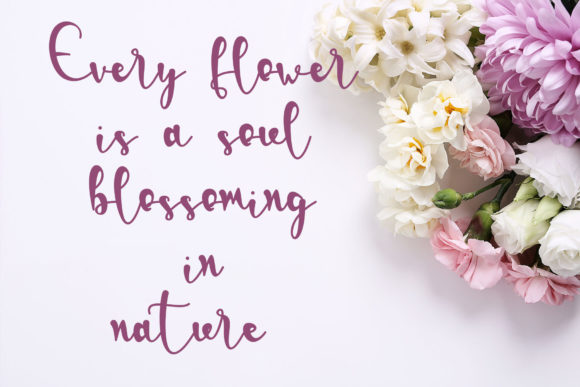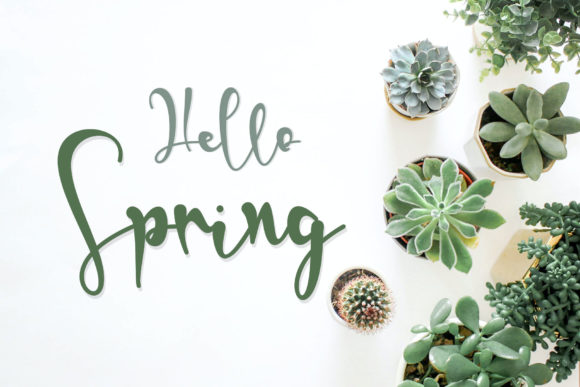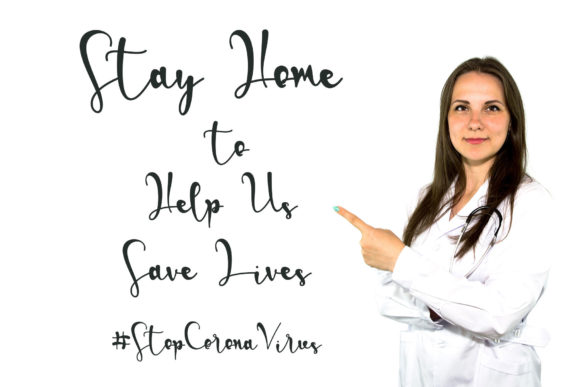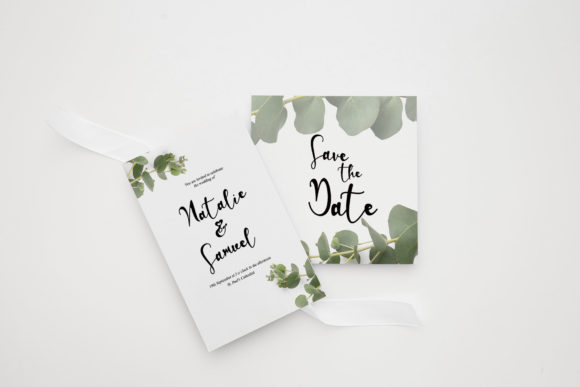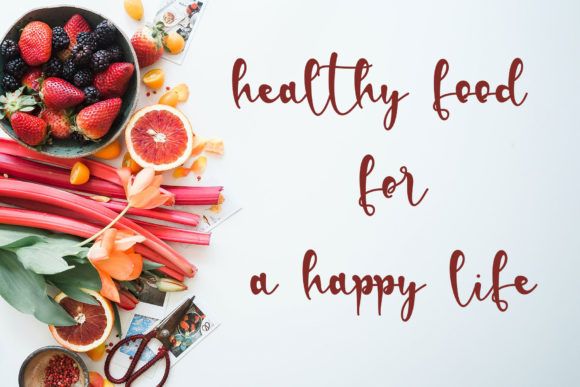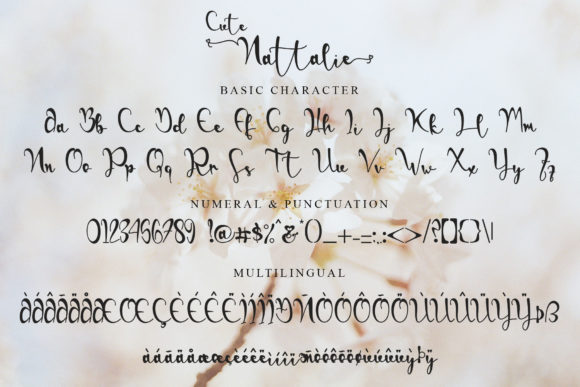
Cute Nattalie Font – Free Download
Introduction to Cute Nattalie Font
Cute Nattalie is a romantic and sweet calligraphy typeface with characters that dance along the baseline.
Key Features of Cute Nattalie Font